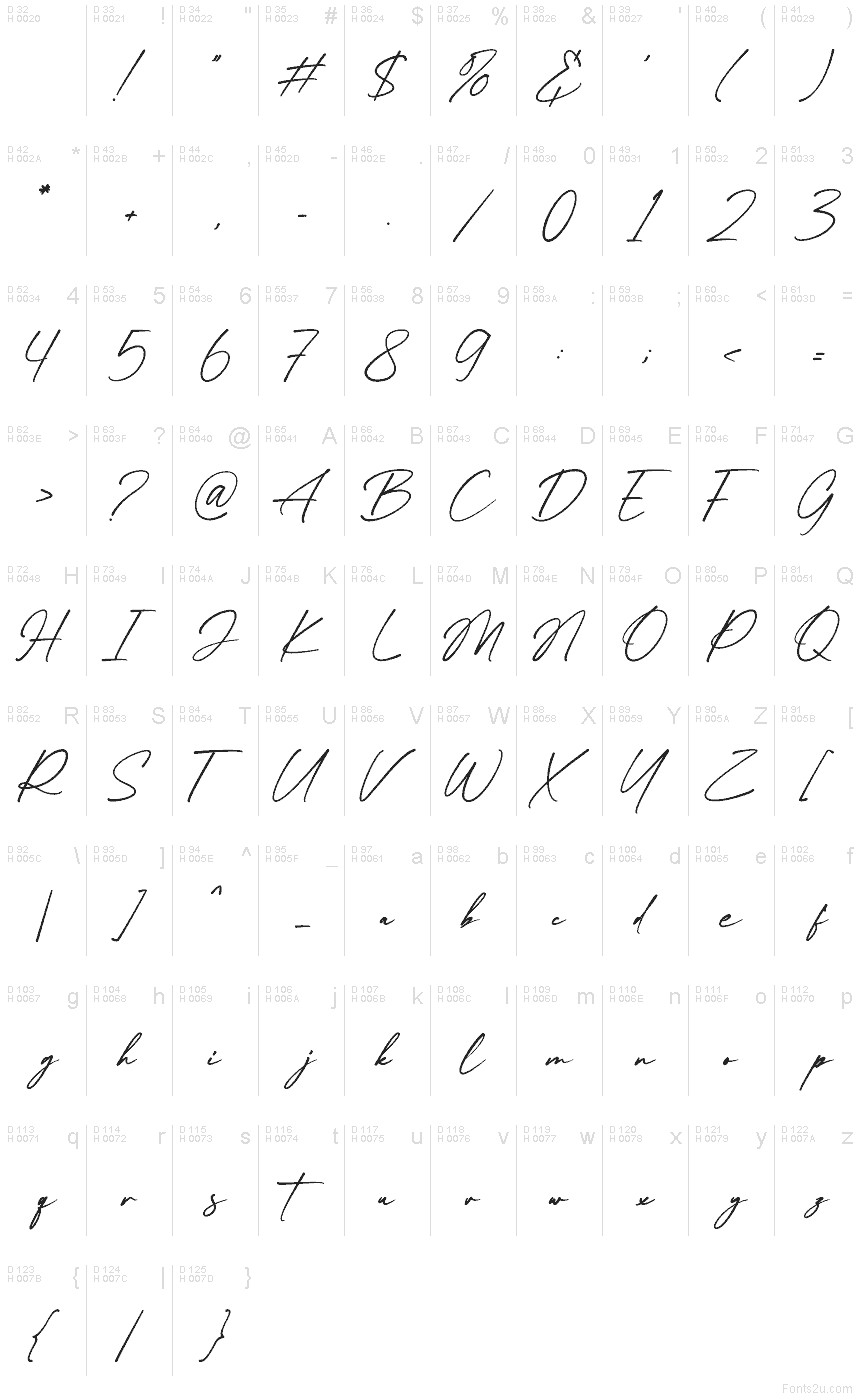
Bethany Avanue
Bethany Avanue font is a light handwritten typeface designed by RantautypeStudio. Crafted with each letter holding its own characteristic, the font provides stunning work that becomes a signature style for projects. Fostered with modern elegance and artistic fluidity, it adds a distinctive and appealing element to personalize texts with creative typography.